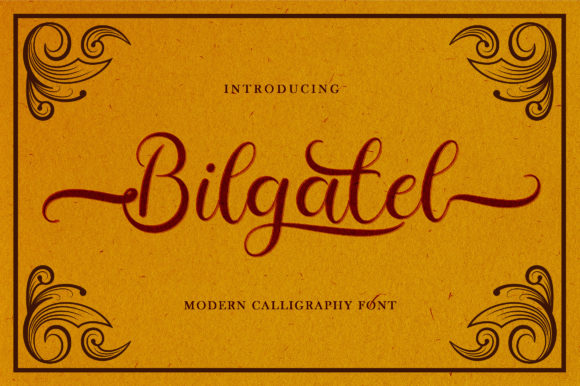
Embark on a romantic calligraphic journey with Bilgatel, the epitome of elegance and charm. Inspired by the art of love letters, this script font captivates with its flowing strokes and timeless appeal.
Immerse yourself in Bilgatel's captivating allure, meticulously crafted to evoke the essence of heartfelt sentiments. Each letter dances gracefully across your screen, carrying a message of passion, adoration, and longing.
With Bilgatel, you can transform your designs into expressions of true affection. Whether crafting a heartfelt Valentine's Day card, designing a wedding invitation that whispers of romance, or creating logos and branding that exude sophistication, Bilgatel is your perfect companion.
Let your creativity flourish as you explore Bilgatel's diverse range of applications. Its delicate charm lends itself effortlessly to invitations, posters, social media graphics, and branding materials. Embrace Bilgatel's versatility and watch your designs blossom into works of art.
As a PUA-encoded font, Bilgatel ensures effortless access to a treasure trove of glyphs and swashes. Unleash your imagination and incorporate intricate embellishments and flourishes that add a touch of whimsy and elegance to your designs.
With Bilgatel, you can transcend the ordinary and elevate your creations to new heights of beauty and sophistication. Its enchanting essence will captivate your audience, leaving a lasting impression that whispers of romance and timeless elegance.